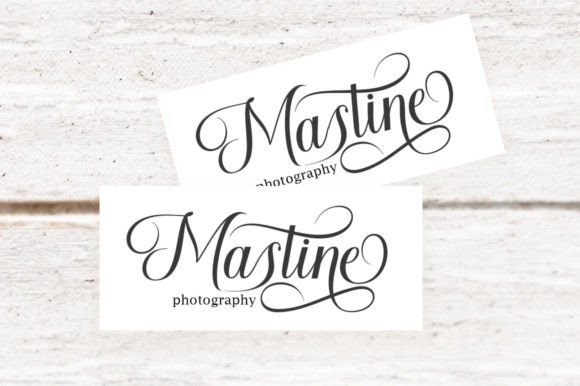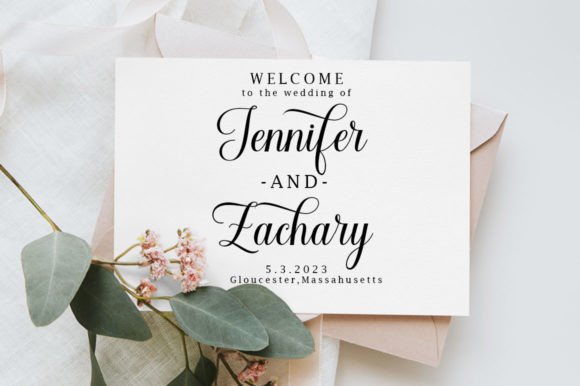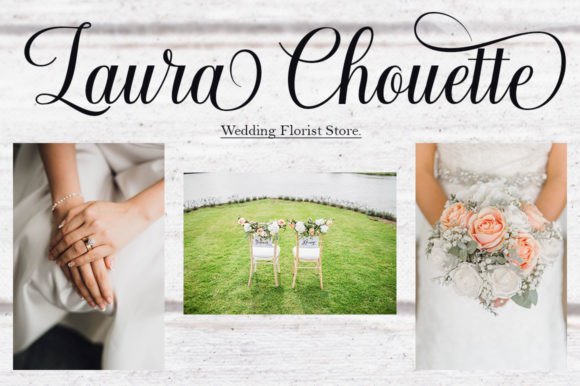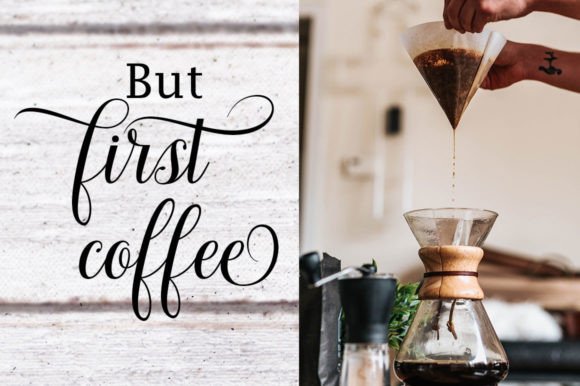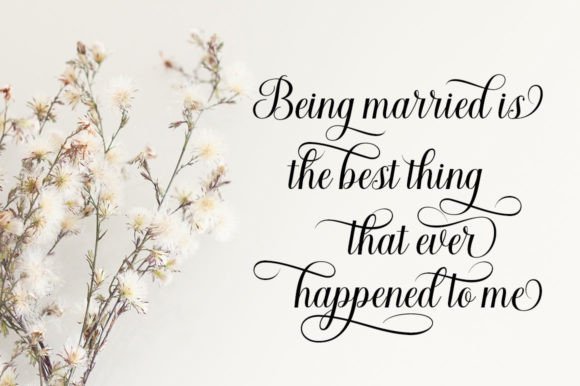
Unlocking the Art of Handwritten Typography
Imagine you’re browsing through a charming boutique, and the first thing that catches your eye is a beautifully crafted logo or a elegant product packaging. The flowing script and delicate strokes evoke a sense of sophistication and warmth, making you feel like you’re holding a piece of art in your hands. This is exactly the kind of creative moment that the Arsegtosia Script font is designed to evoke.
The Arsegtosia Font is a modern calligraphic design that’s perfect for adding a touch of personality to your projects. Whether you’re working on a logo, product packaging, or wedding invitation, this font’s casual and pretty style is sure to make a lasting impression. With its OpenType language styling changes and international support for most Western languages, it’s a valuable tool for designers looking to add a human touch to their work.
Arsegtosia Font Key Features
- Font Family: Arsegtosia Font
- Character Count: 1000+ glyphs, including Latin, Cyrillic, and Greek alphabets, as well as various symbols and punctuation marks
- Unique Characteristics: Distinctive, hand-drawn style with irregular lines and subtle texture, making it suitable for creative and artistic applications
Arsegtosia Font Review
As a designer, I was excited to dive into the world of Arsegtosia Font. This unique font has a lot to offer, and I’m here to break it down for you.
- Unique Letterforms: Arsegtosia Font has some truly distinctive letterforms that will help your designs stand out.
- Highly Versatile: From headings to body text, this font can adapt to any project.
- Excellent Legibility: Despite its unusual appearance, Arsegtosia Font is remarkably easy to read.
- Limited Character Set: Unfortunately, Arsegtosia Font has a limited character set, which may limit its use in certain projects.
- No Italic or Bold Weights: Currently, the font does not offer italic or bold weights, which can be a drawback for designers who rely on these styles.
While Arsegtosia Font has its limitations, its unique letterforms and high versatility make it a great addition to any designer’s toolkit. With a bit more development, this font could become a game-changer. As it stands, I’d recommend it for designers looking to add some visual interest to their projects.
For optimal use of the Arsegtosia Font, use it in bold or italic styles to create emphasis and add visual interest to your text. Common use cases include:
– Headings and titles
– Emphasis in body text
– Creative and artistic projects
– Adding a unique touch to your branding
Creative Projects Using Arsegtosia Font
The Whimsical Woodland Invitation is a playful and elegant design that combines the unique characteristics of the Arsegtosia Font with whimsical woodland elements.
To use the Arsegtosia Font in this project, pair it with illustrations of forest animals, trees, and flowers in a watercolor style.
Tip: Combine the Arsegtosia Font with hand-drawn illustrations to create a sense of whimsy and playfulness. Use a mix of bold and cursive text to add visual interest.
Design Elements:
- Arsegtosia Font
- Watercolor illustrations of forest animals and trees
- Hand-drawn flowers and foliage
- Woodland-themed graphics (e.g. acorns, leaves)
The Steampunk-inspired Menu Board is a unique and eye-catching design that combines the Arsegtosia Font with steampunk elements and vintage illustrations.
To use the Arsegtosia Font in this project, pair it with distressed textures, gears, and other steampunk-inspired graphics.